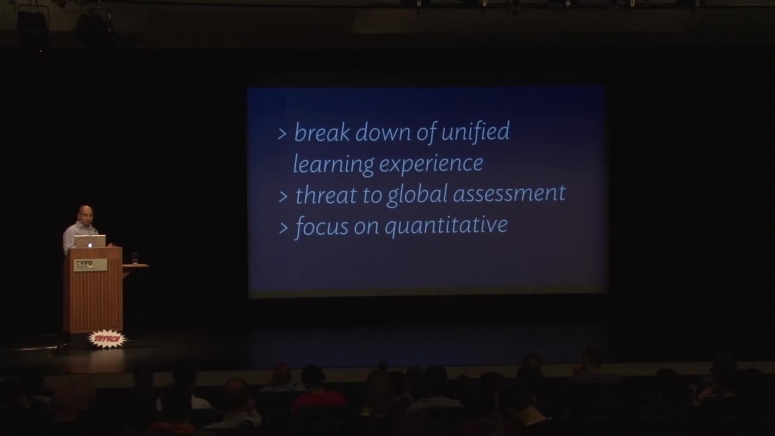
This is the New Typography (and the Typefaces that Make it Work)
Gerry Leonidas
London 2012
Saturday, 20 October 2012 | 15:00 | Jeffery Hall
Gerry will tell a story about typography, and typefaces. In this story, Typography is growing up, entering its sixth era. It is growing as a space shared by many disciplines, gathering readers who see – often for the first time – type, and spatial arrangement, and interaction as decisions that somebody made. In this story we see fundamental assumptions questioned, some thrown out with a “why on earth did we do it like this?”, and others kept with a forced admission that the old guys did get some things right after all. The best part of the story is the bit where typefaces become the looking glass through which all this comes together. There’s no baddie in this story.
Gerry Leonidas
Gerry Leonidas teaches and researches typography and typeface design at the University of Reading, UK. He supervises MA and PhD research, and lectures widely. He consults on publication and typeface design, reviews bodies of work, and runs knowledge transfer projects with a twin focus on global... Read More